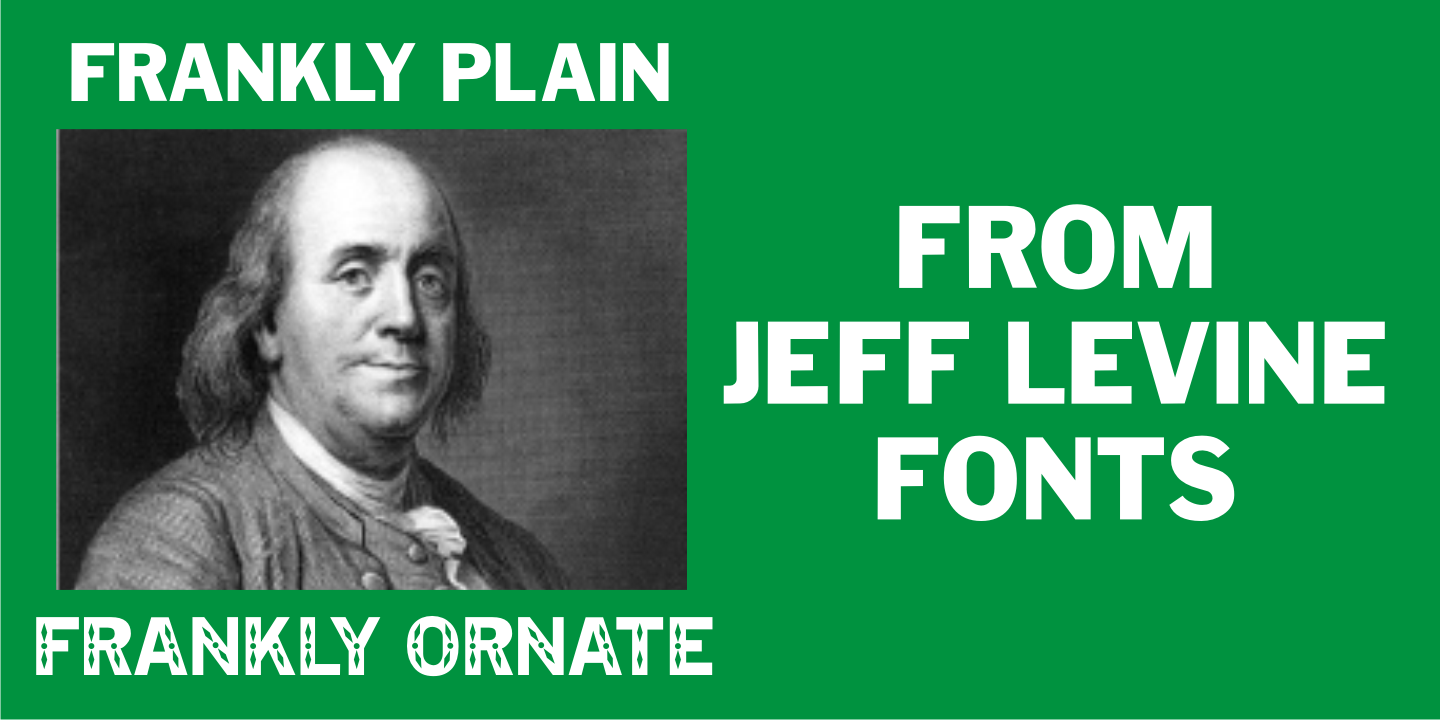
Frankly JNL is a display, western and display sans font family. This typeface has two styles and was published by Jeff Levine Fonts.
Frankly Plain JNL is an all-caps version of the ever-popular Franklin Gothic, while Frankly Ornate JNL adds a decorative embellishment to the letters and numbers.